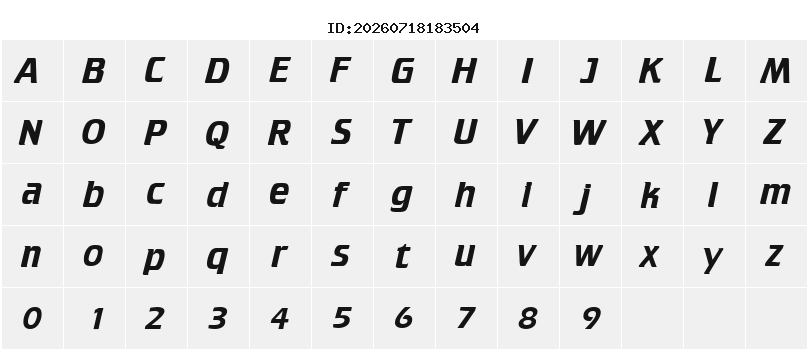
About Cruiser.ttf
Cruiser.ttf is a modern, elegant sans-serif font designed for ultimate readability and visual harmony. Perfect for branding, headlines, web design, and print materials.